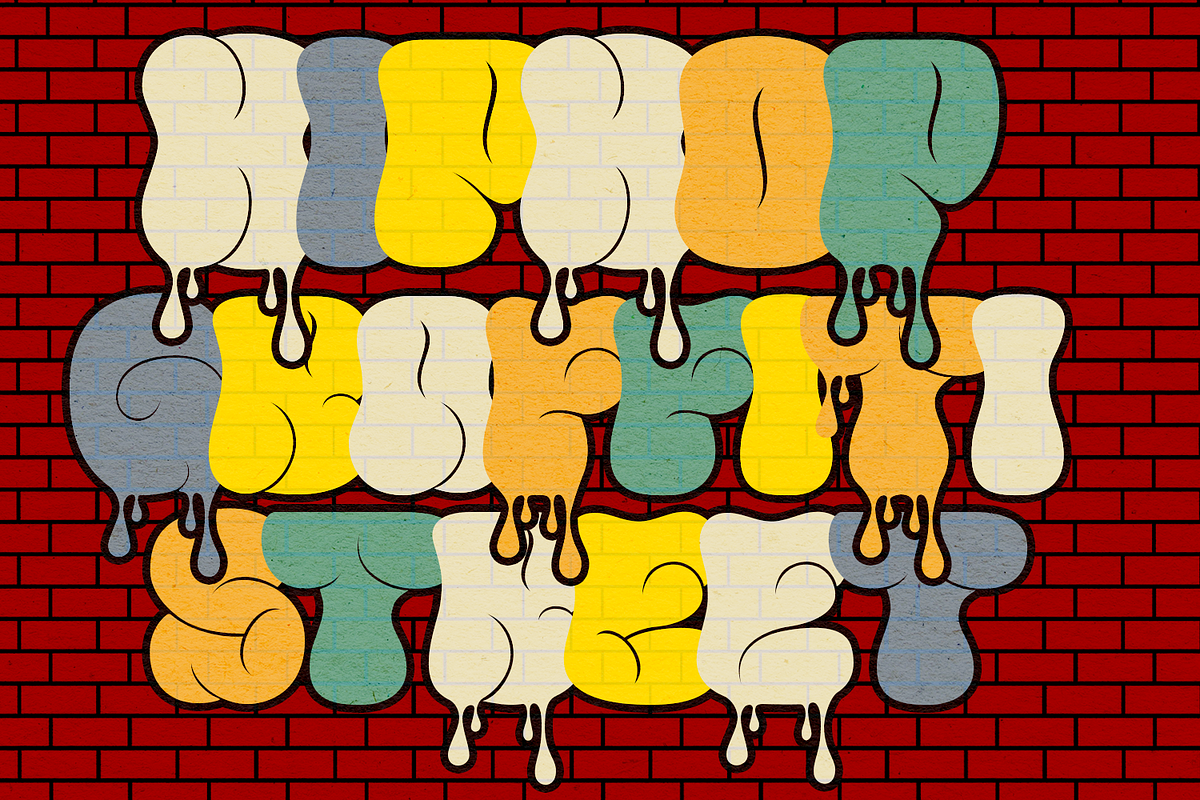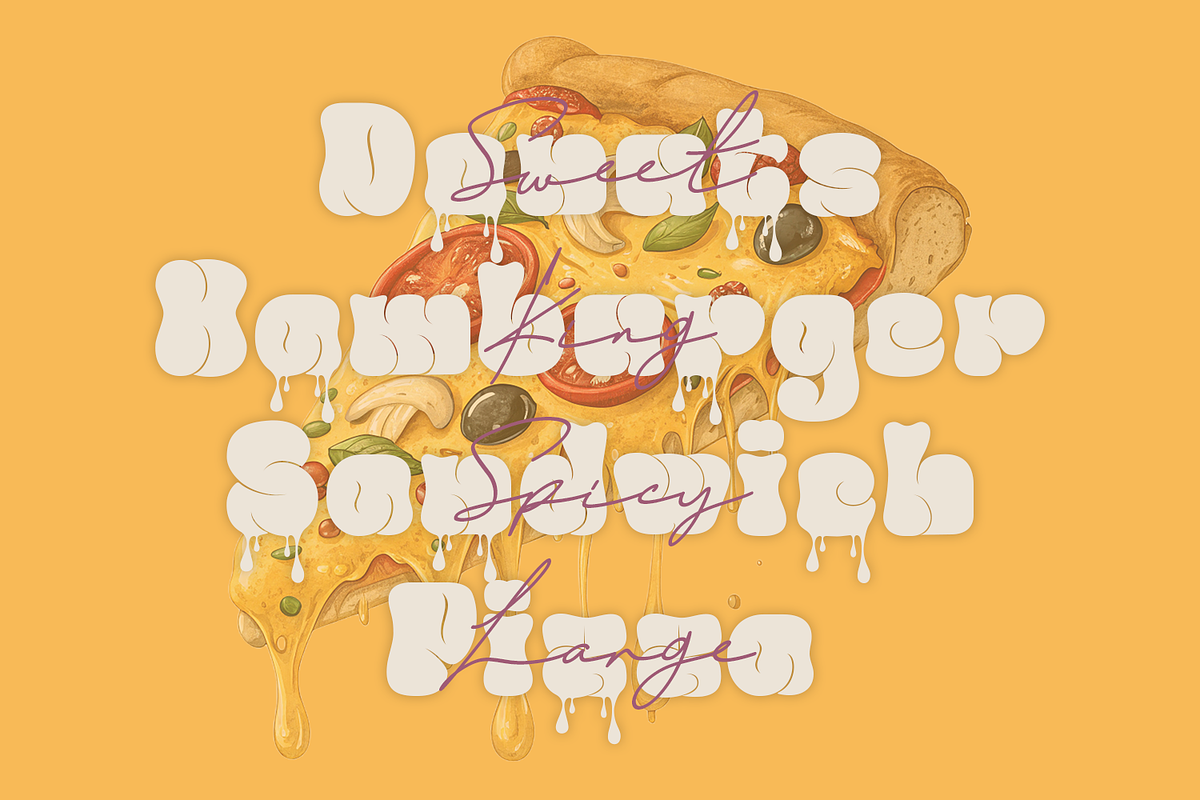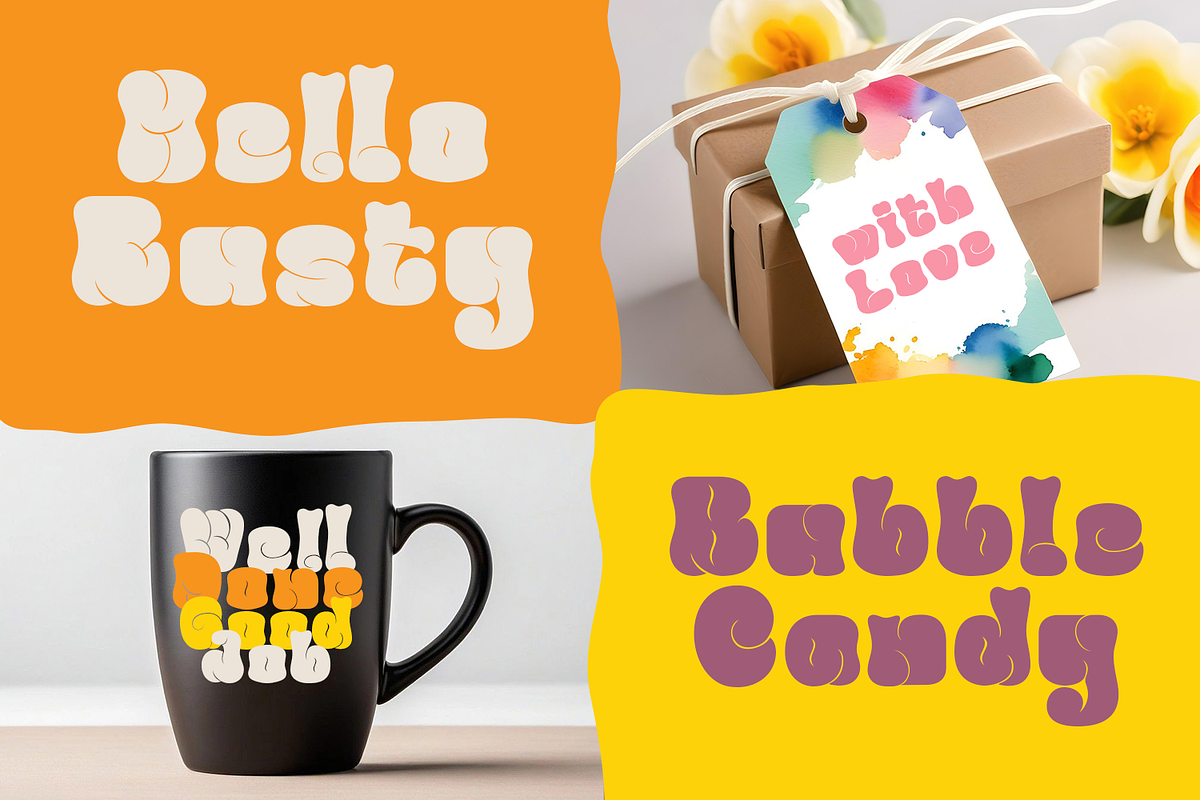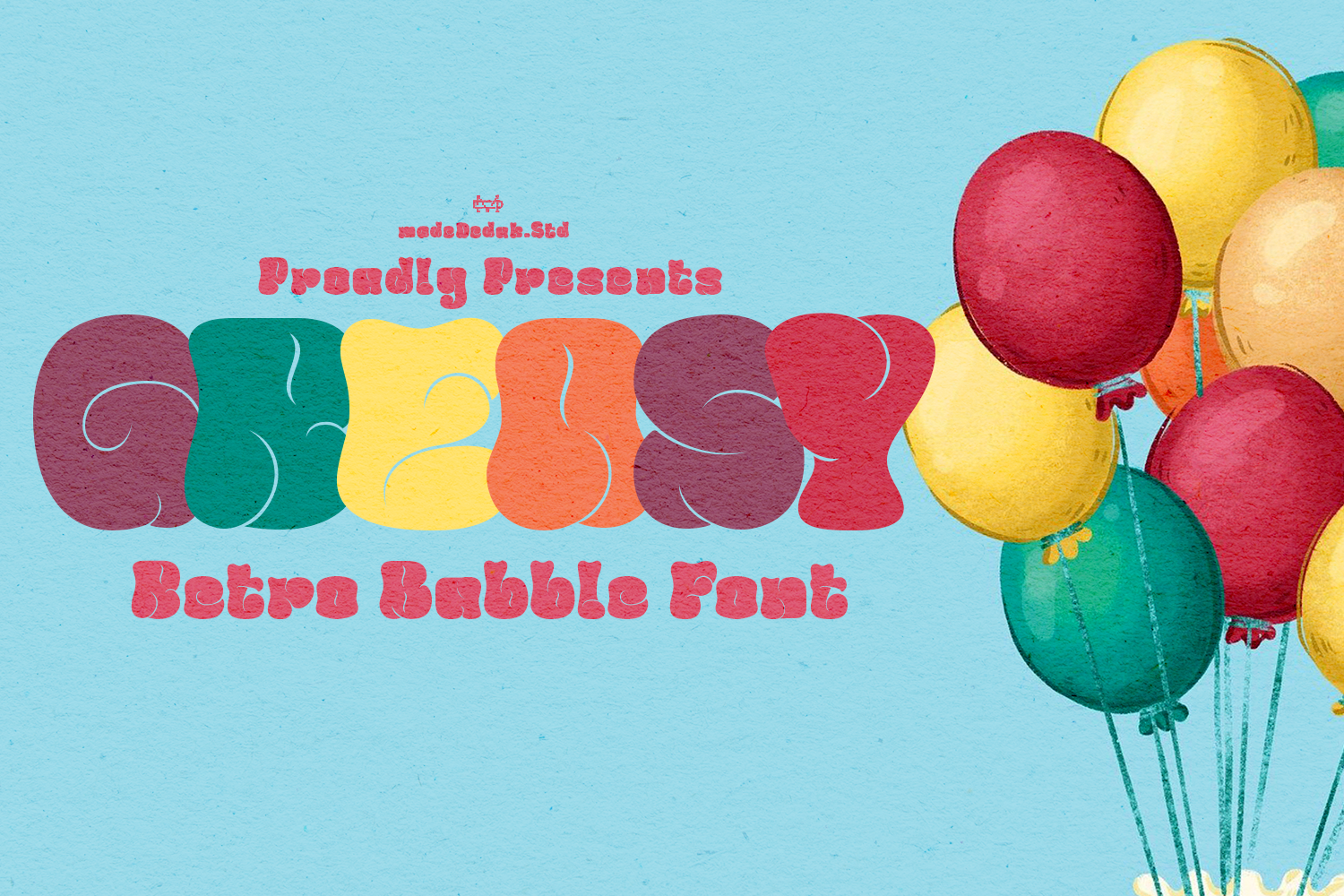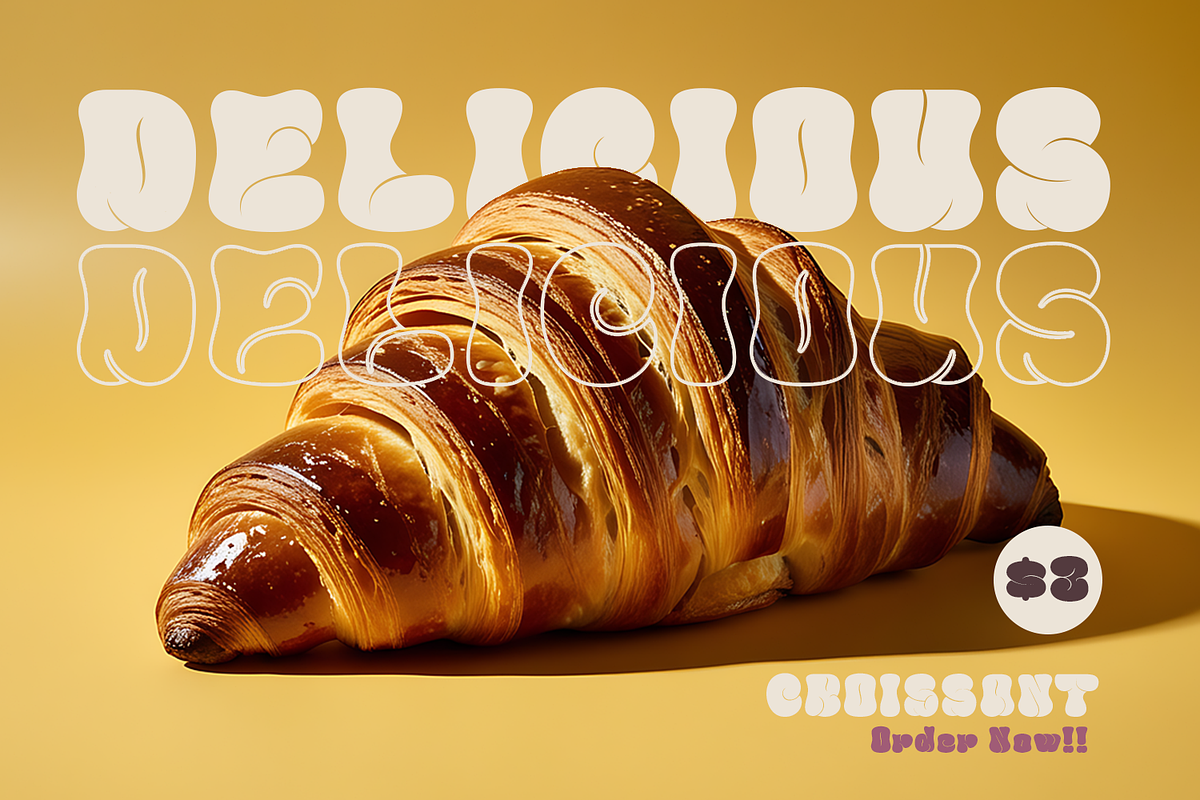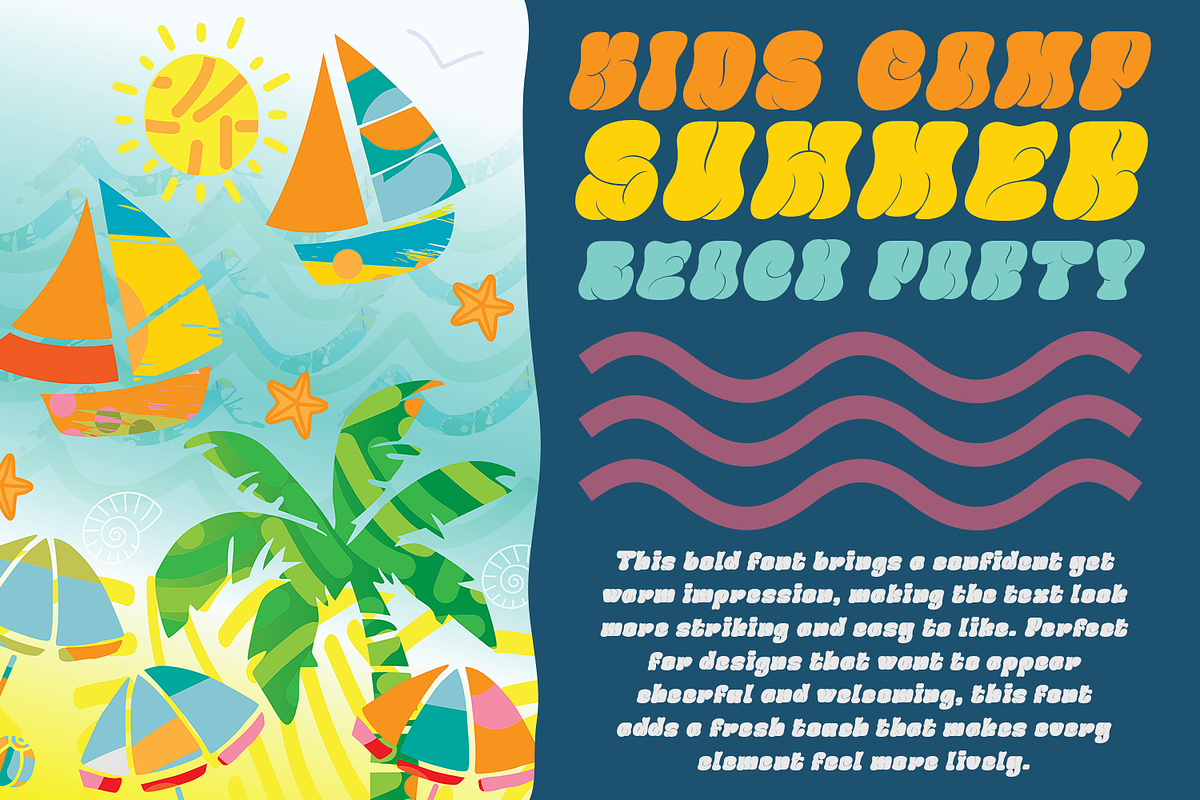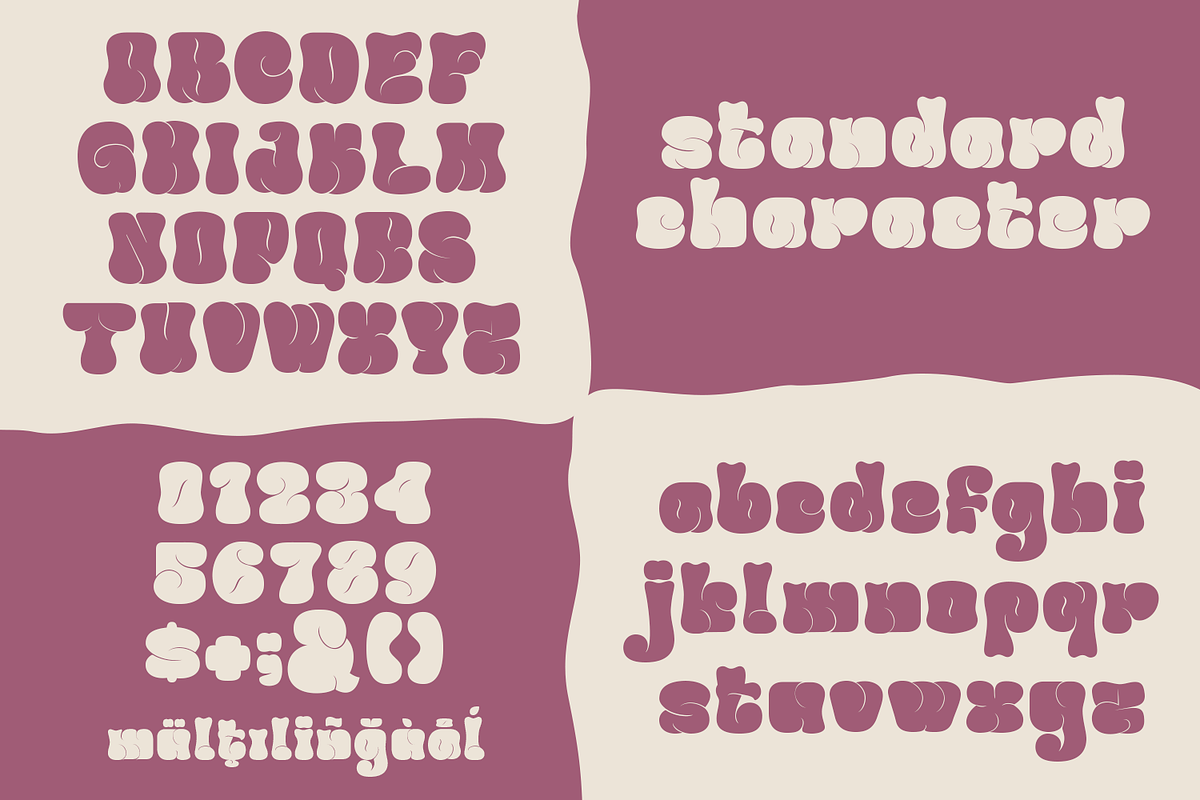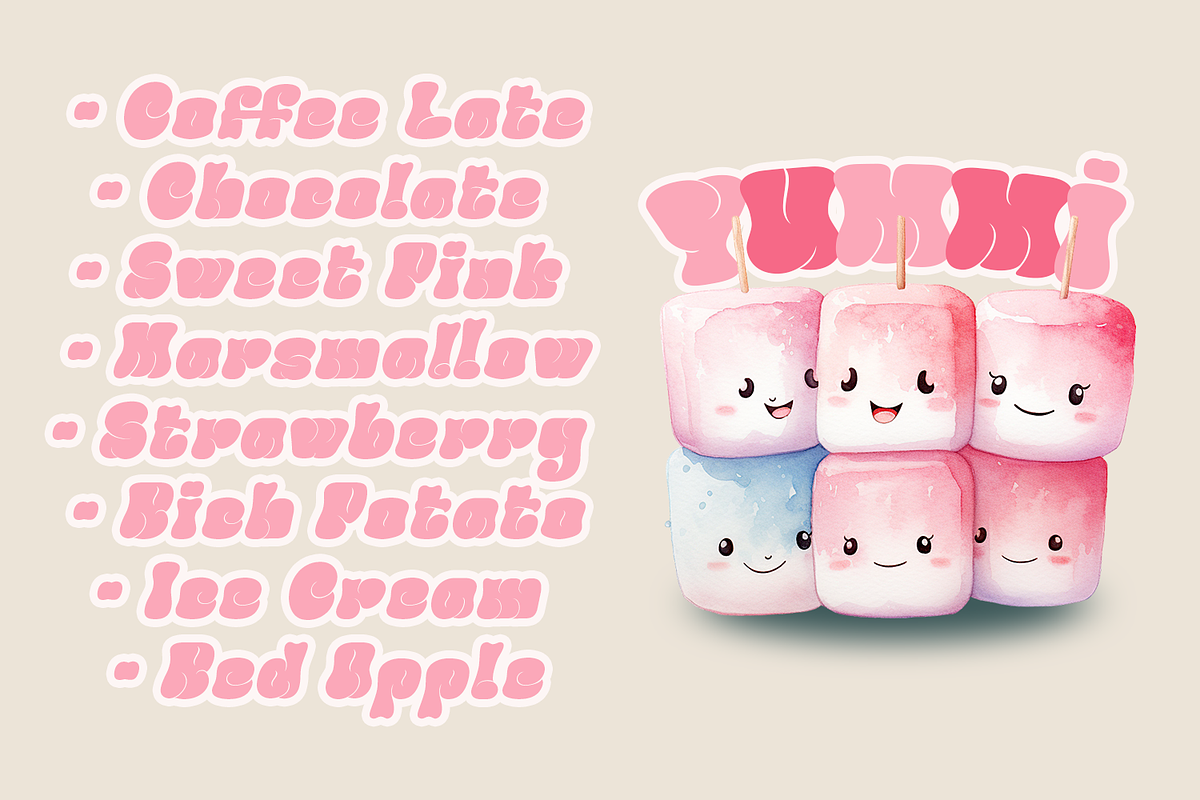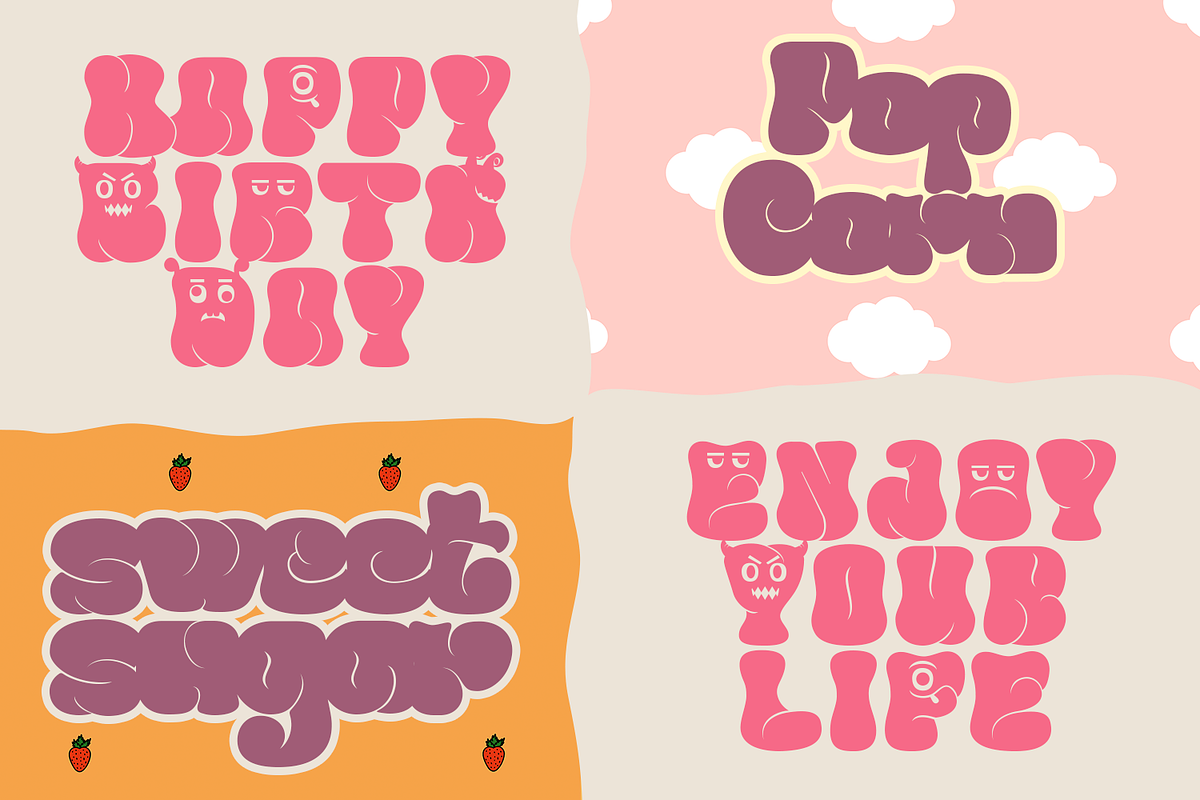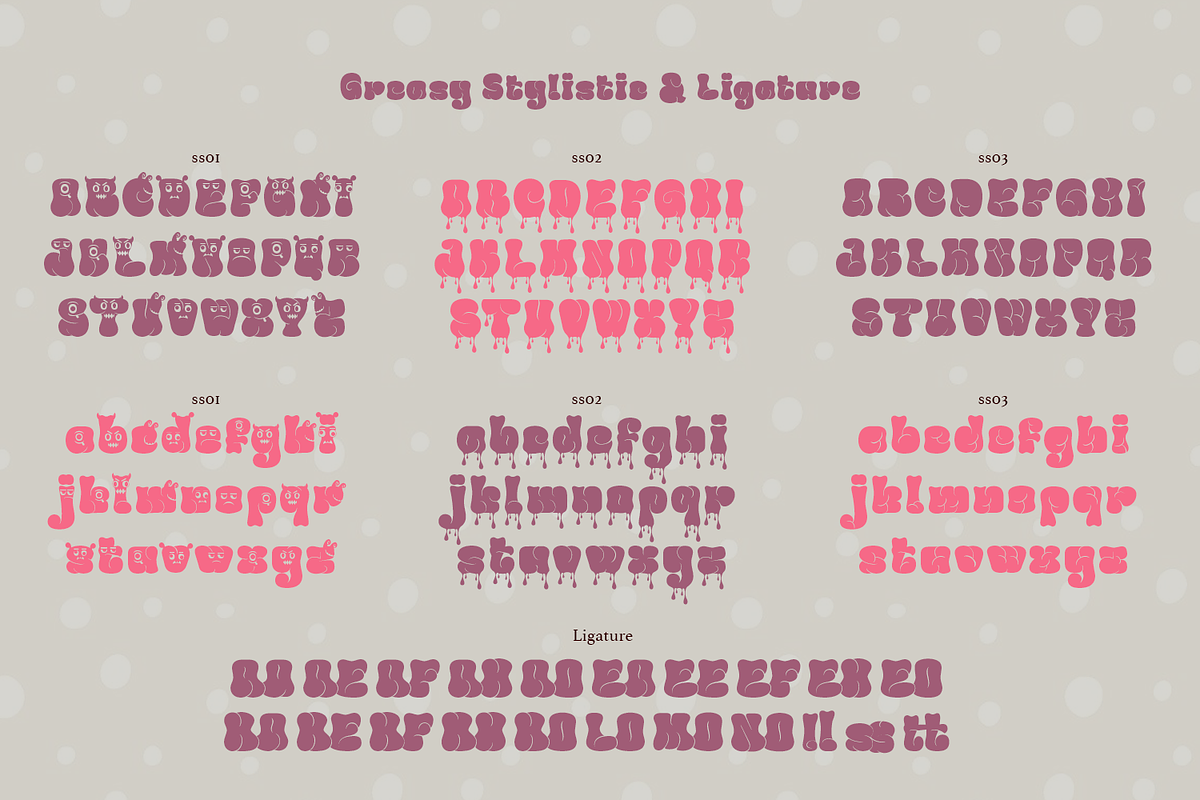
Greasy Bubble Font
Introducing Greasy bubble font, a bold typeface that exudes confidence while maintaining a warm impression. This font enhances text visibility, making it striking and appealing. Ideal for designs aiming to convey a cheerful and welcoming atmosphere, it adds a fresh touch that enlivens every element. With its easy readability and meticulously crafted glyphs, this font transforms simple words into beautiful expressions, making it a versatile choice for various creative projects.